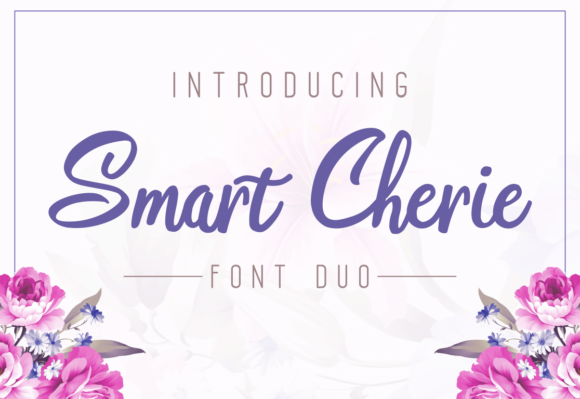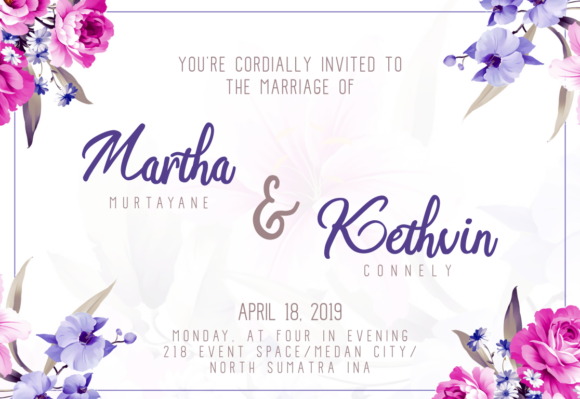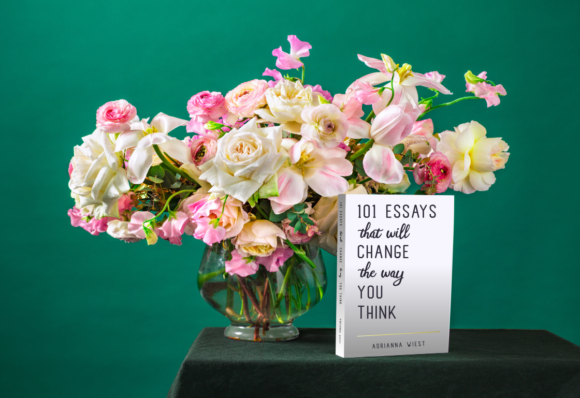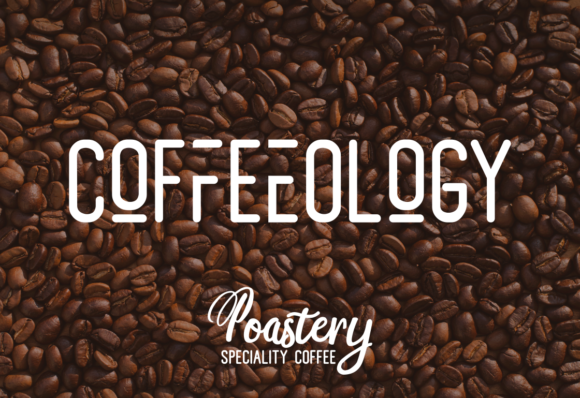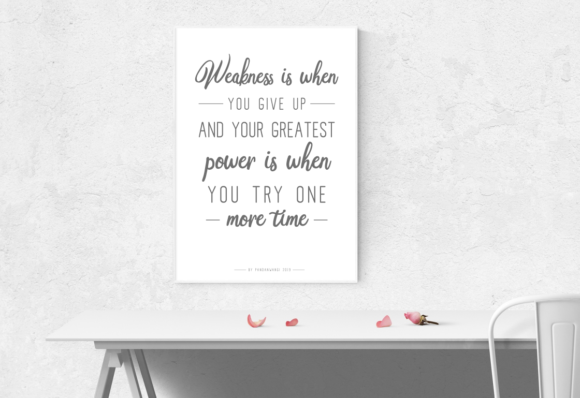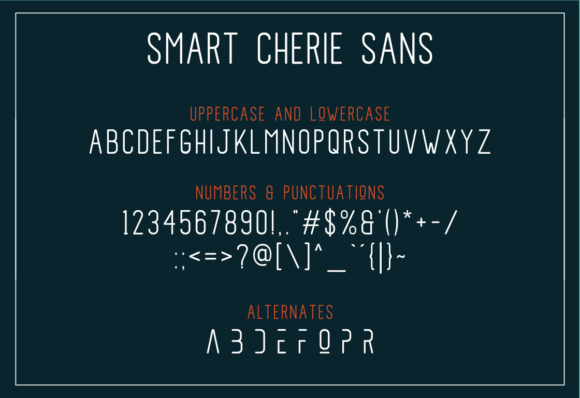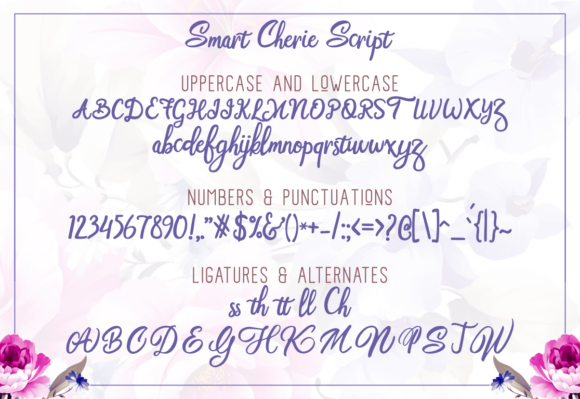
Smart Cherie Duo Font
About Smart Cherie Duo Font
Sweet, delicious and incredibly charming: Fall in love with the Smart Cherie Duo, a striking mix of two unique fonts!